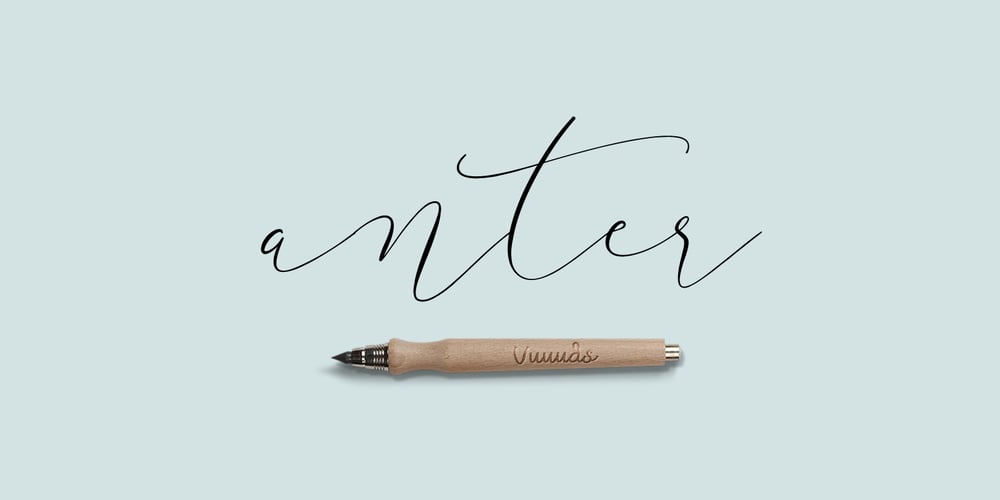
Anter Script Font Family was designed by Agung Syaifudin and published by vuuuds. Anter Script contains 1 styles and family package options. Anter is modern script font, every single letters have been carefully crafted to make your text looks beautiful. With modern script style this font will perfect for many different project ex: quotes, blog header, poster, wedding, branding, logo, fashion, apparel, letter, invitation, stationery, etc.Anter script including alternate glyph.